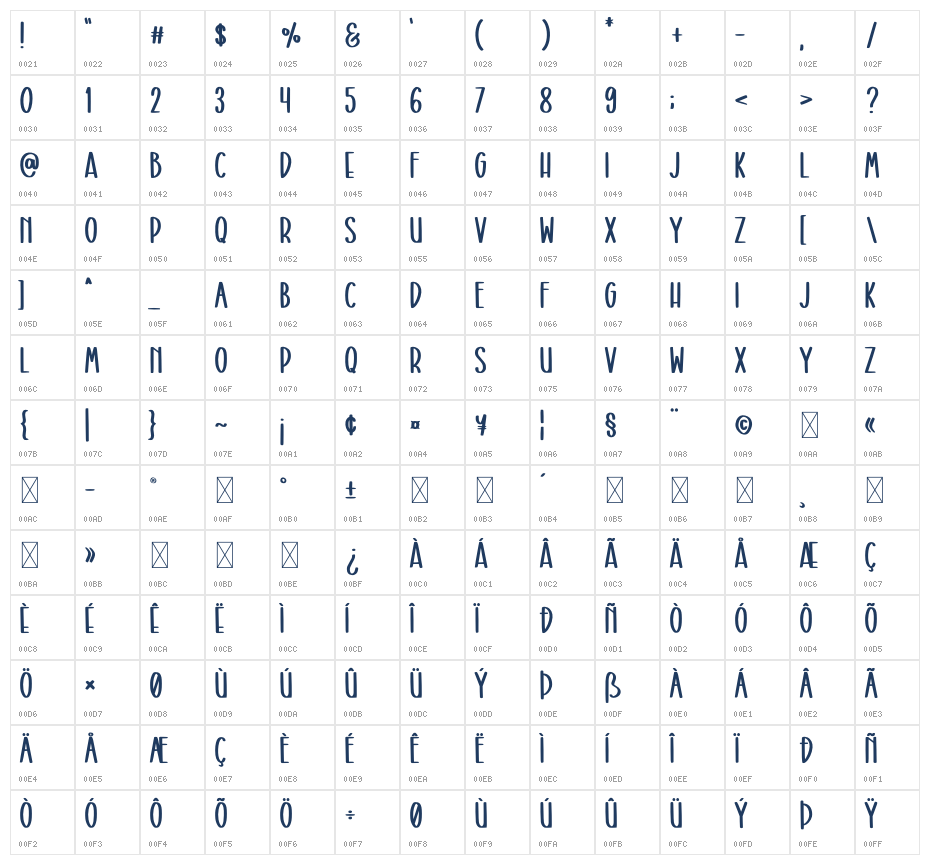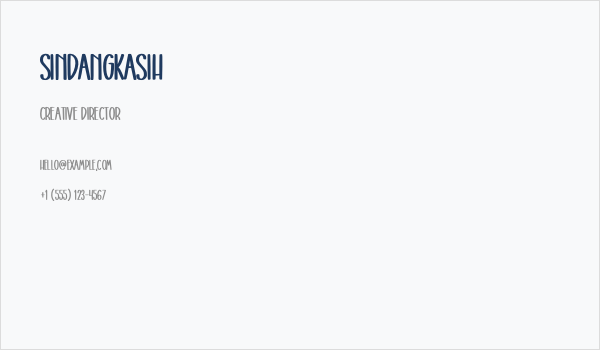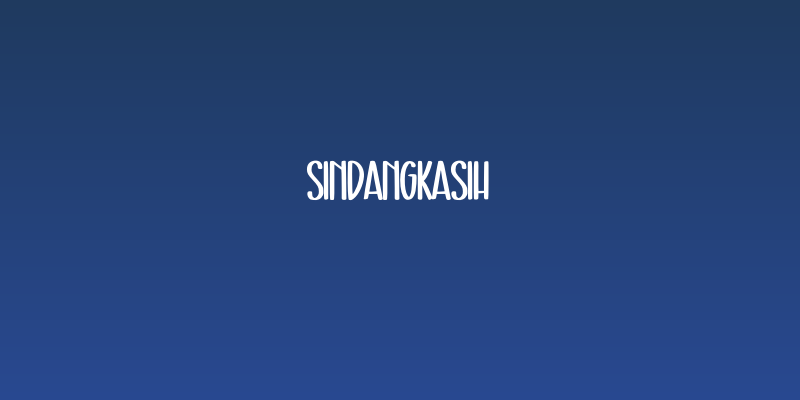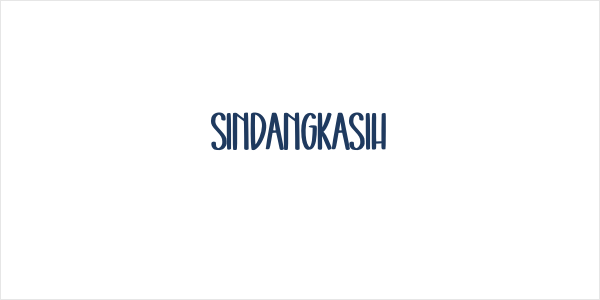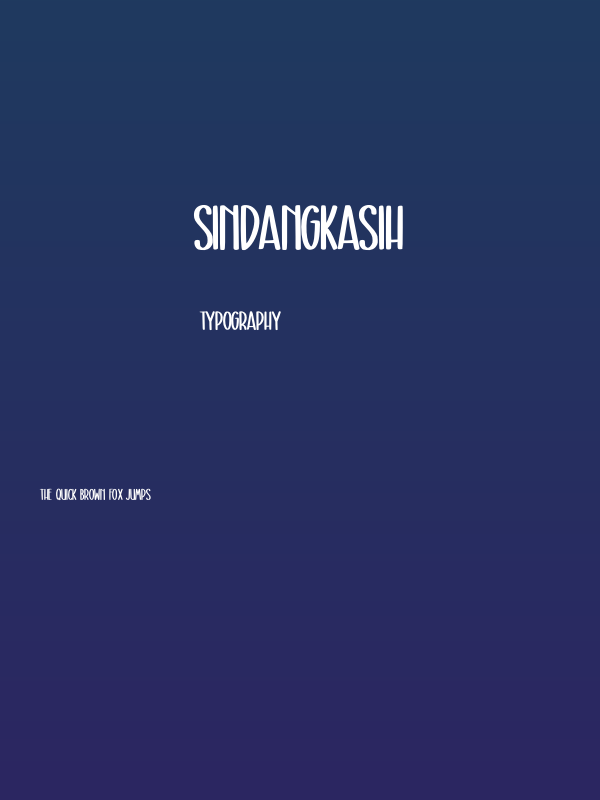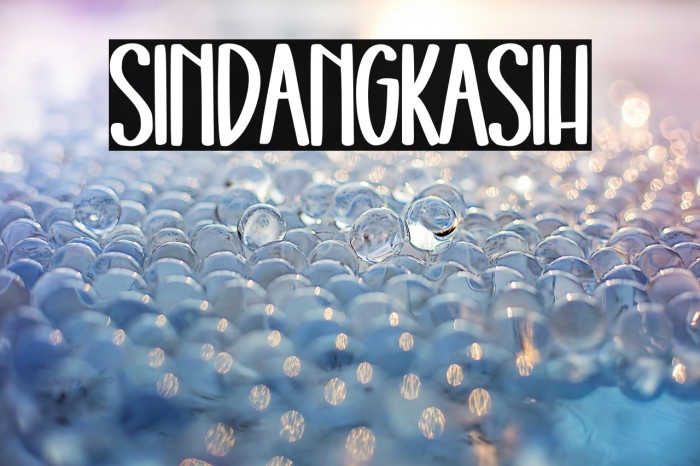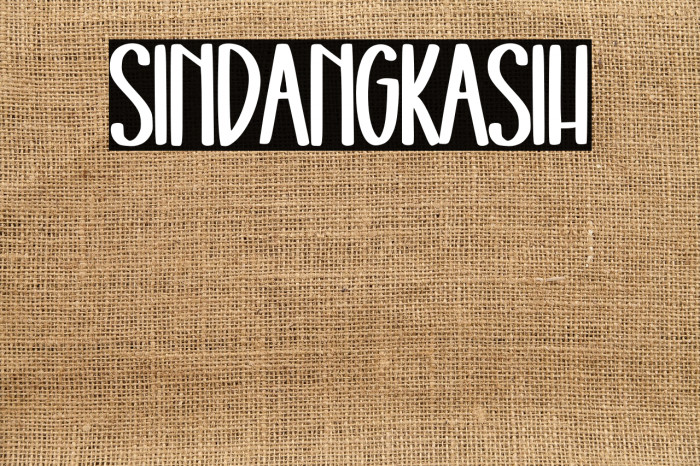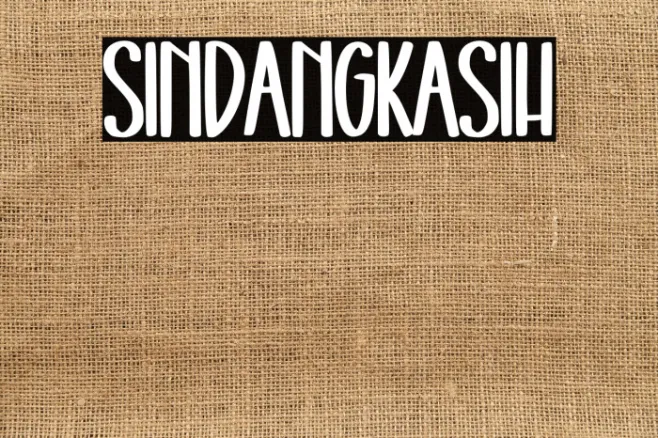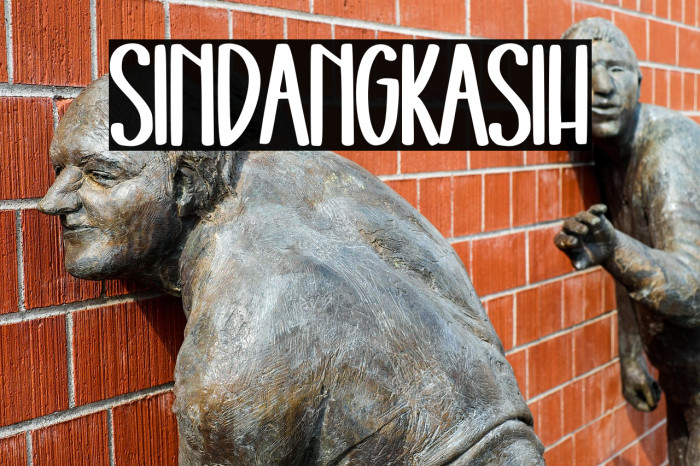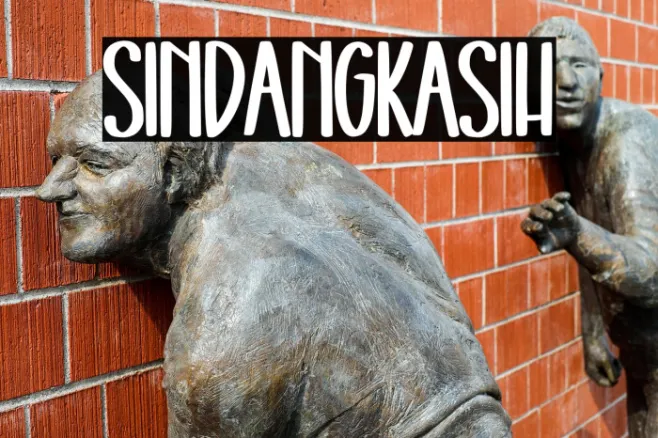
Sindangkasih Font
Sindangkasih Description
Playful, handwritten style font with irregular, slightly elongated characters.
| Use Case | Headlines, Children's books, Creative projects, Invitations |